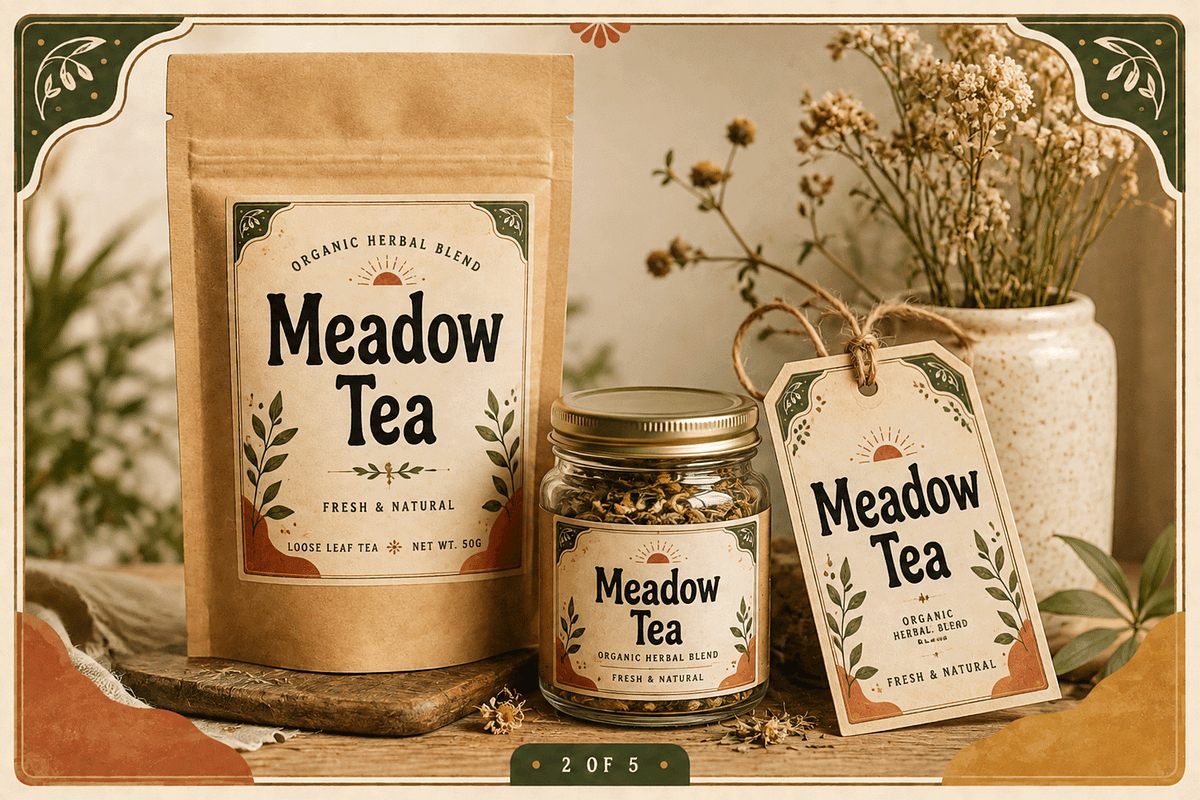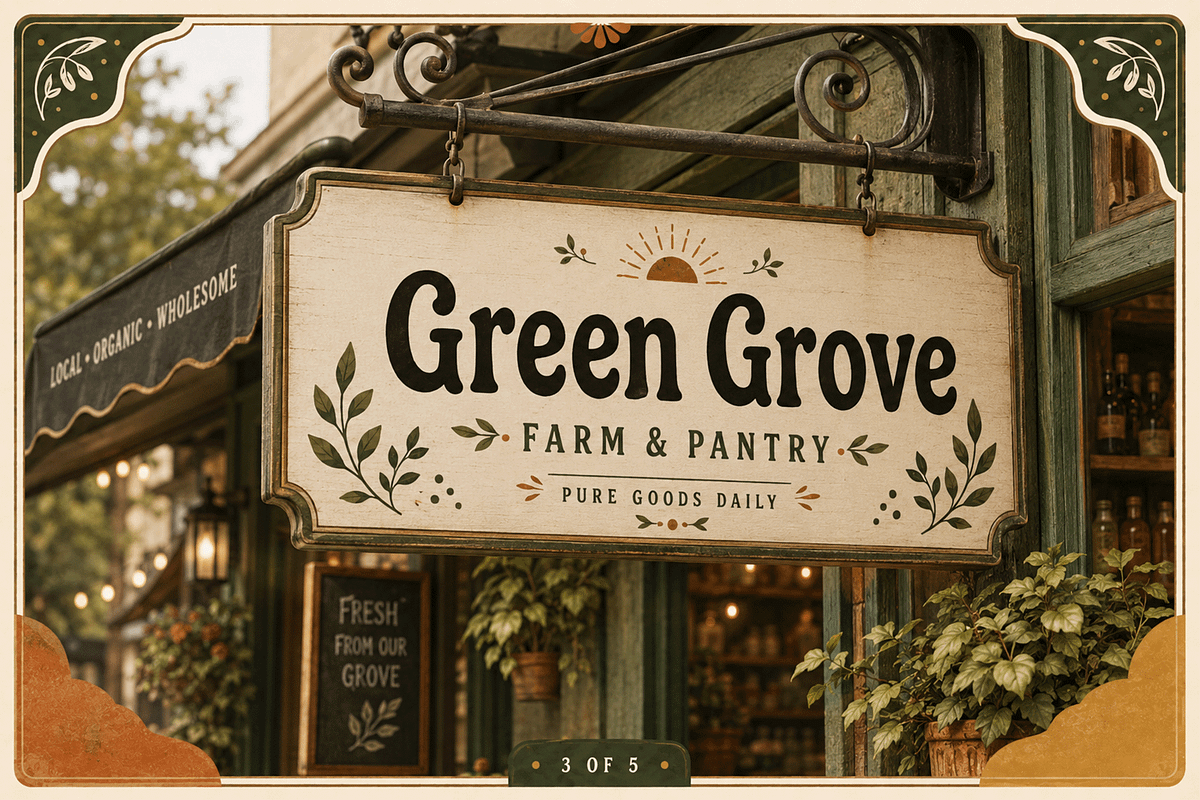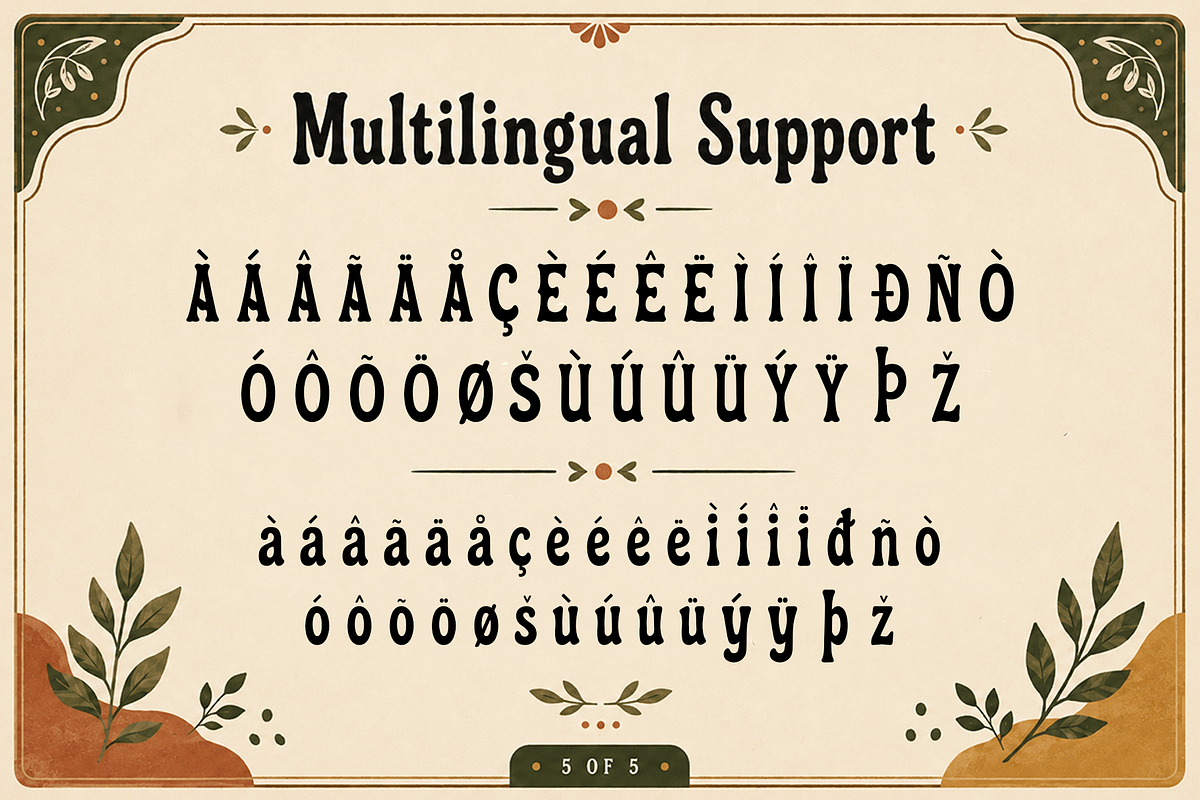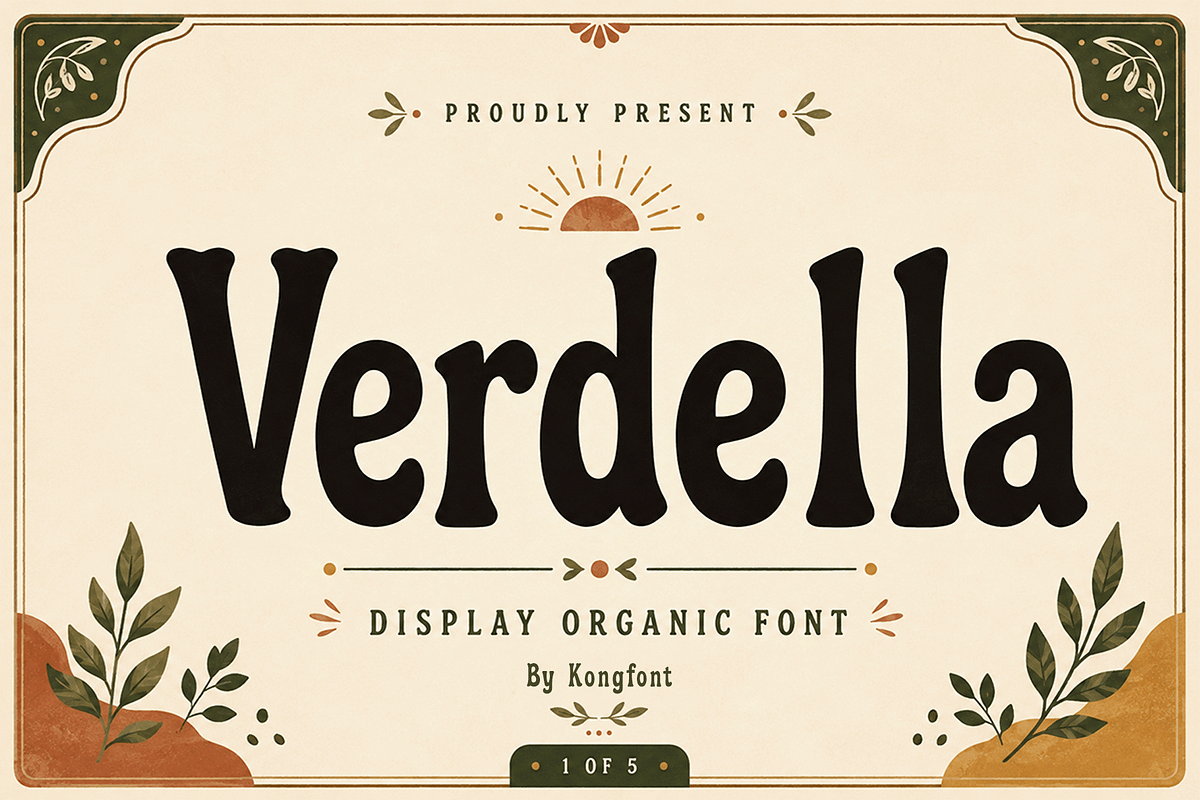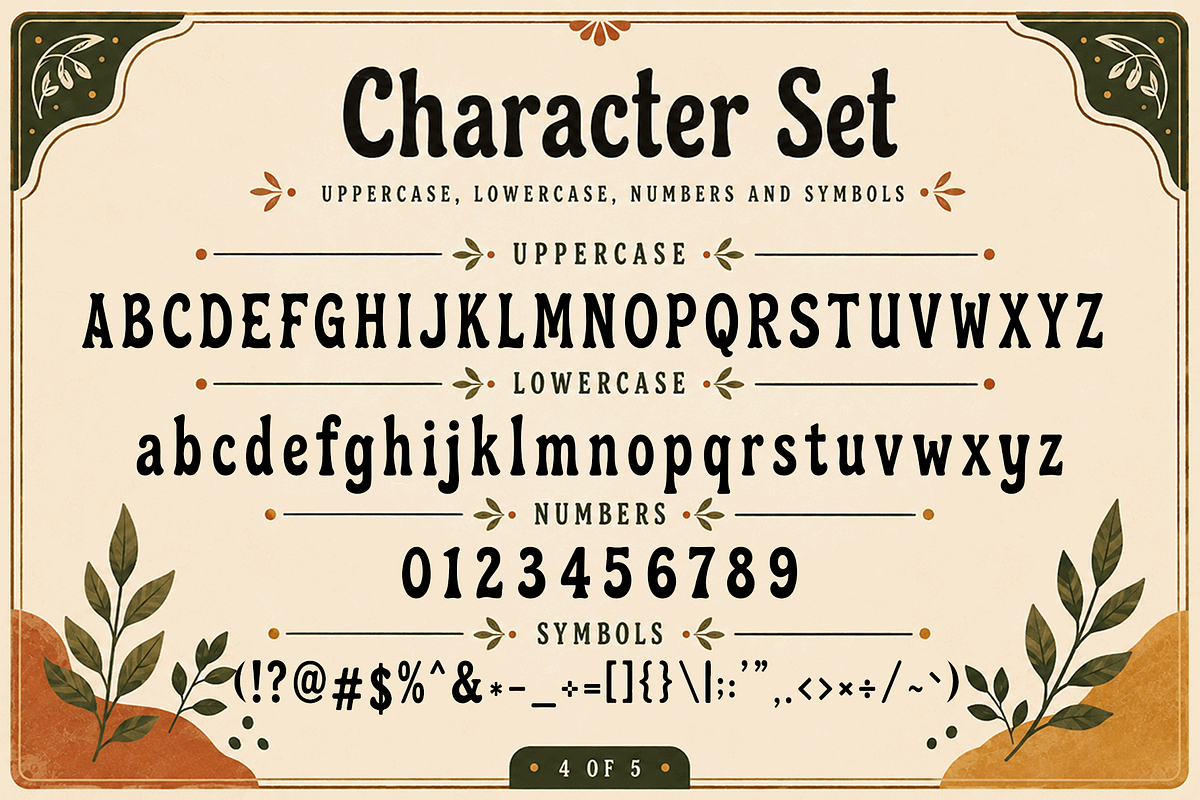
Verdella - Retro Display Font
Verdella - Organic Retro Display Font
Meet "Verdella," an organic retro display font inspired by nature, handcrafted design, and warm vintage typography. Featuring soft curves, slightly irregular forms, and a relaxed personality, Verdella brings a natural and approachable feel to every composition.
Its bold yet friendly letterforms make Verdella perfect for branding, packaging, posters, labels, café identities, organic products, handmade goods, botanical designs, social media graphics, and lifestyle projects. The font combines retro charm with an earthy modern aesthetic, making it especially suitable for brands that want to feel authentic, creative, and welcoming.